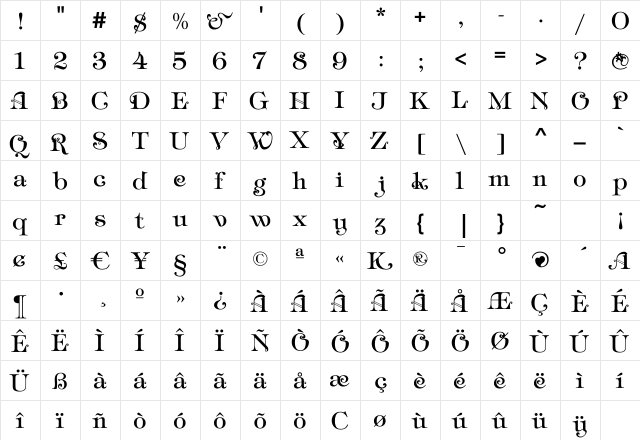
MelicoRegular Regular
Design Context for MelicoRegular Typeface
MelicoRegular takes a measured approach to typography — its balanced proportions and neutral character make it a reliable workhorse for both digital and print work.